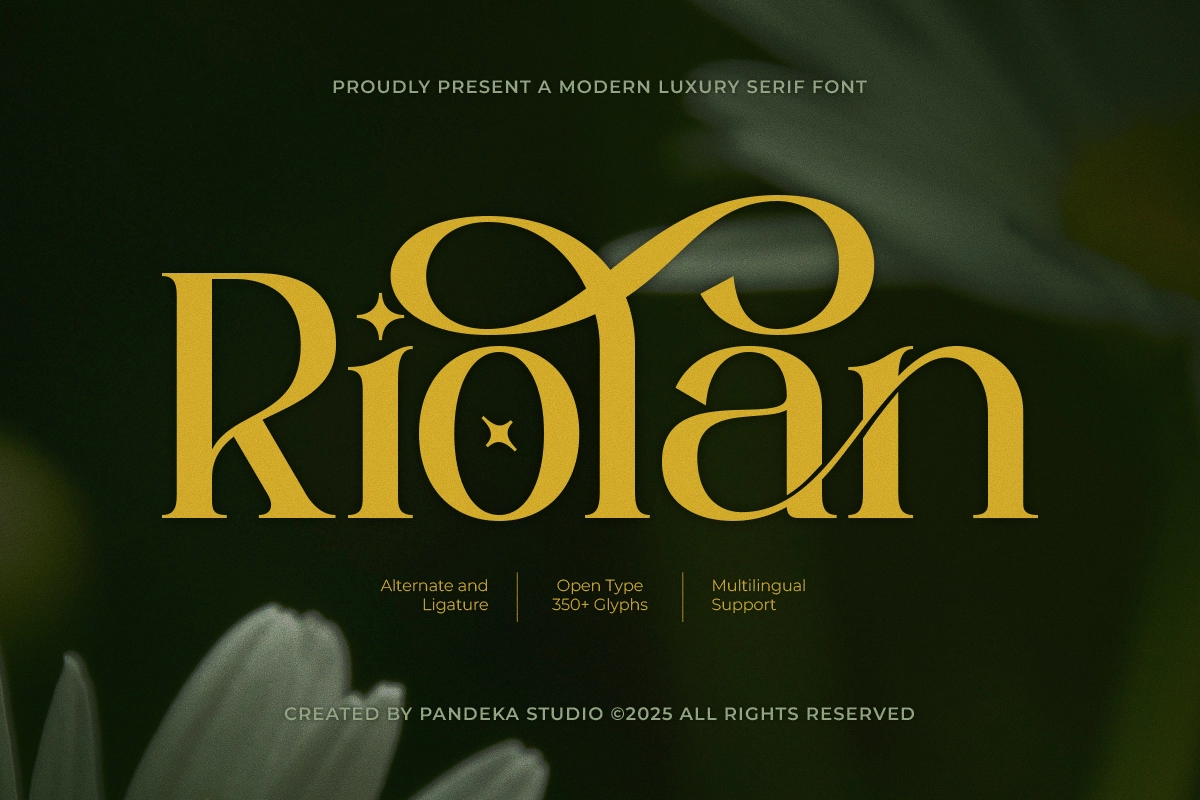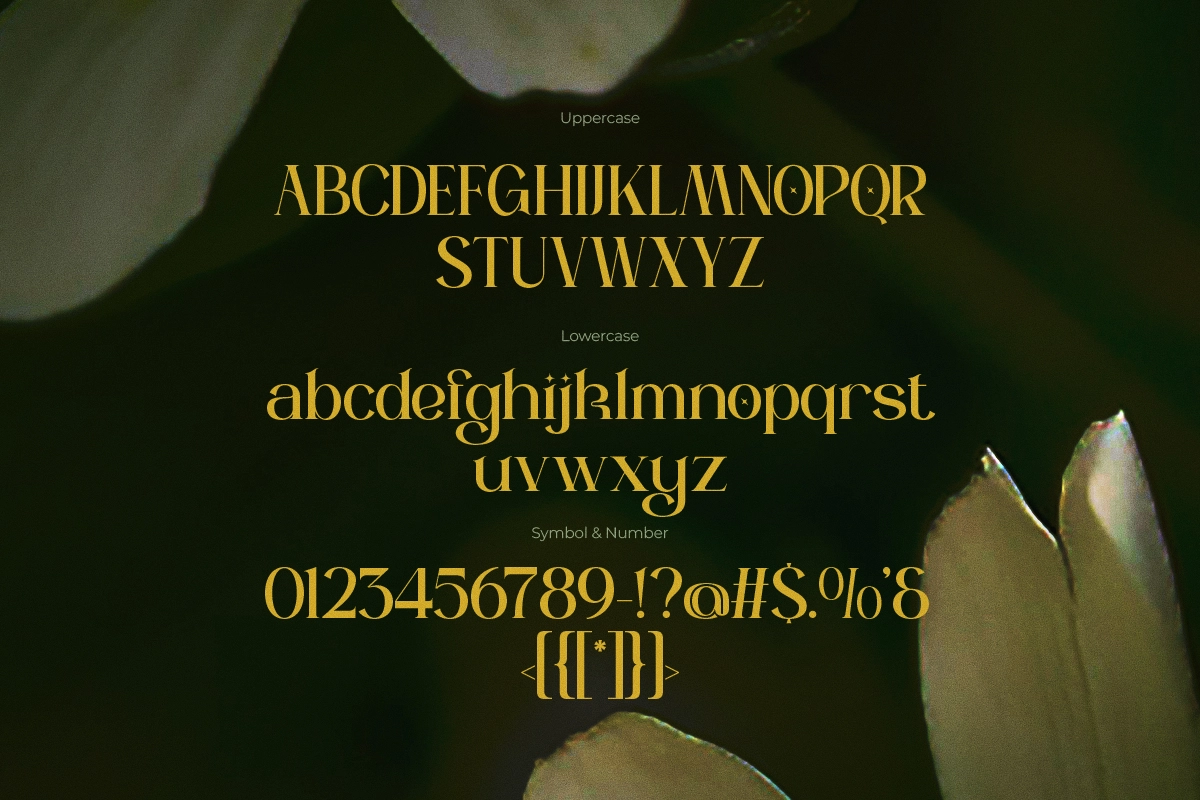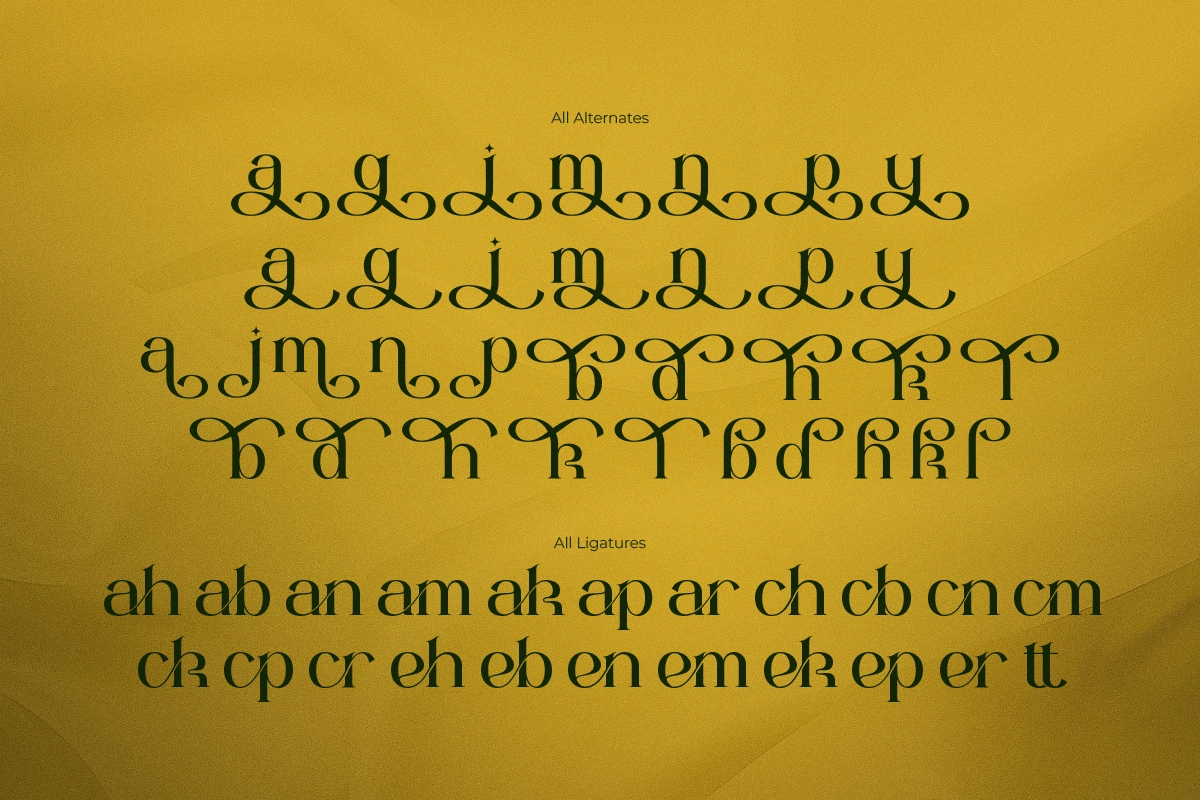
Riolan - Elegant Luxury Serif Font
Riolan is an elegant, high-contrast luxury serif font built on sharp serifs, tall stroke contrast, and swash ligatures that loop into the letters that follow. Star-shaped dots sit over the i and j, and the alternates trade straight strokes for looping curls on demand.
Riolan works best in short, spelled-out settings where the connected ligatures can read as a single mark. Use it for luxury logos, fashion branding, jewelry and beauty labels, perfume and cosmetic packaging, wine and spirits bottles, magazine mastheads, editorial headlines, and wedding monograms.
• Uppercase & lowercase;
• Numerals, punctuation & symbols;
• 55+ ligatures and stylistic alternates;
• Multilingual support;